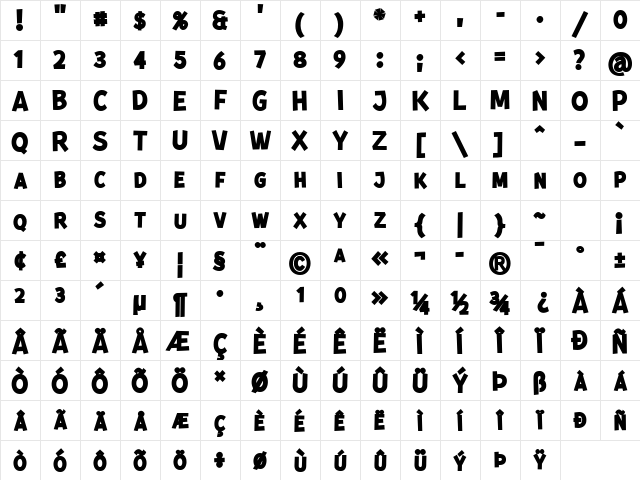
Complete Kurri Island Caps Black Regular glyph index. Displaying only characters natively supported by Kurri Island Caps Black Regular font.
Kurri Island Caps Black is a composed and adaptable typeface that performs quietly and consistently across a wide range of design contexts.